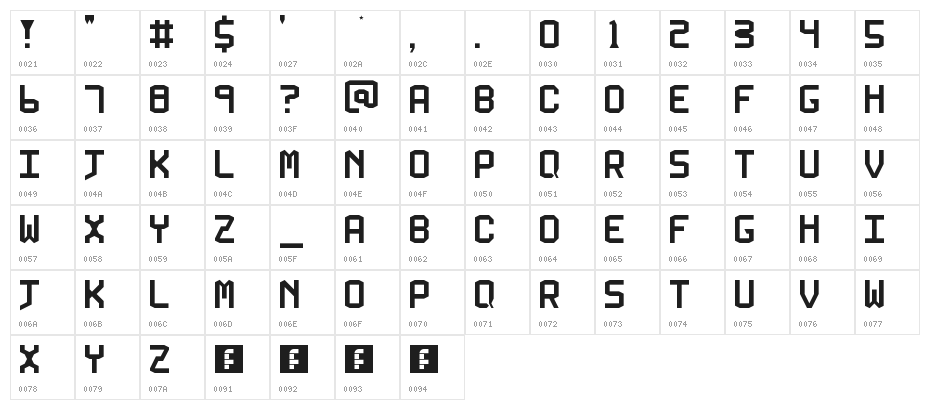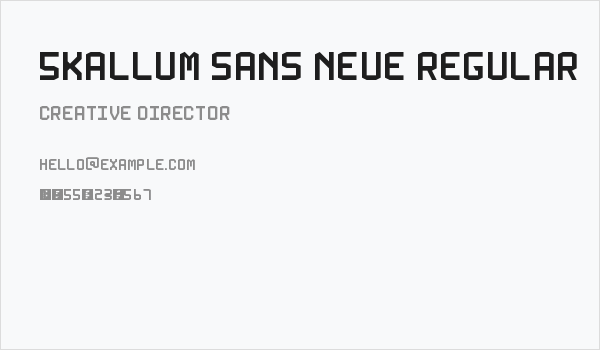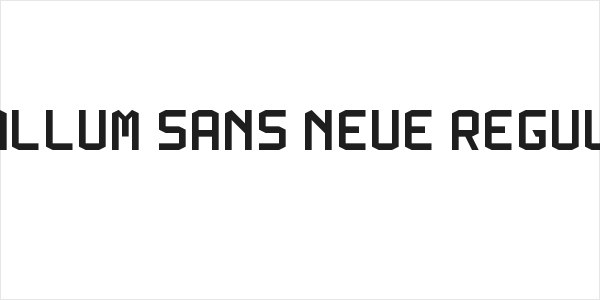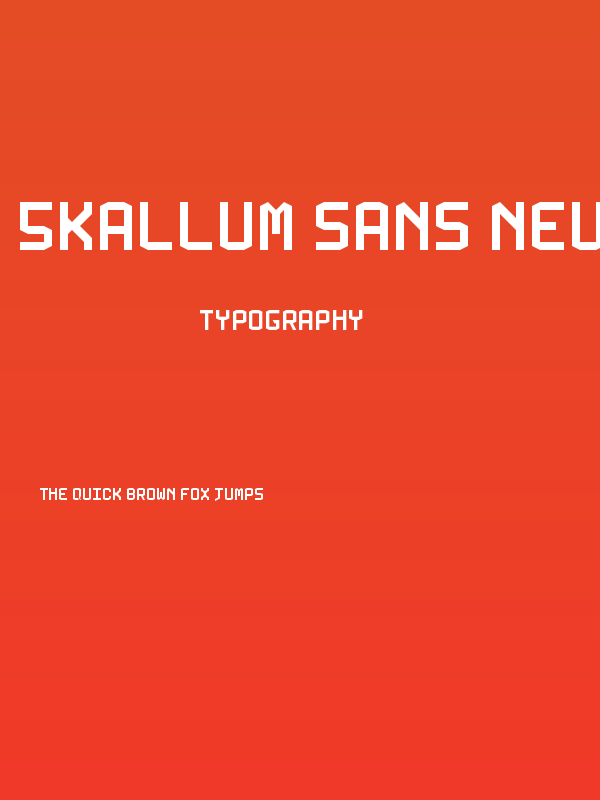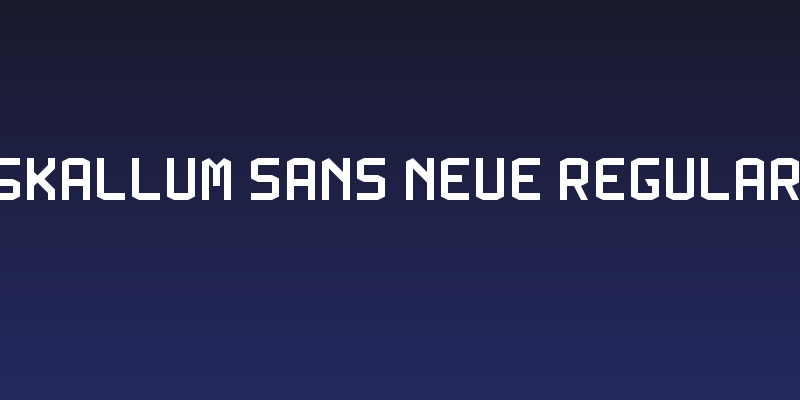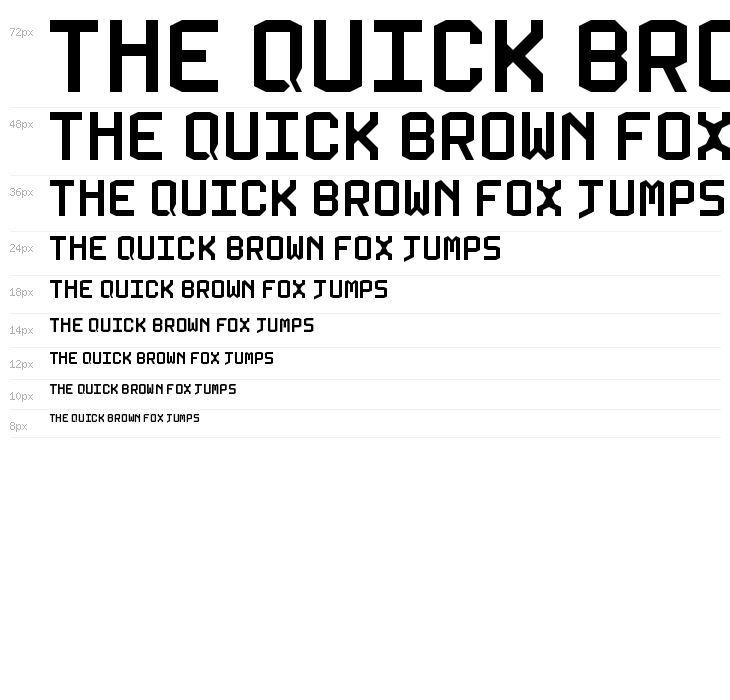
5Kallum Sans Neue Regular Font
5Kallum Sans Neue Regular Description
This font features a geometric and modern design with a strong, angular appearance. The characters are constructed with a consistent stroke width, giving it a bold and structured look. The uppercase letters are particularly striking, with sharp edges and a futuristic feel. The numerals and special characters maintain this aesthetic, ensuring a cohesive appearance across all glyphs. The font's design is clean and uncluttered, making it suitable for a variety of applications where a contemporary and assertive style is desired.